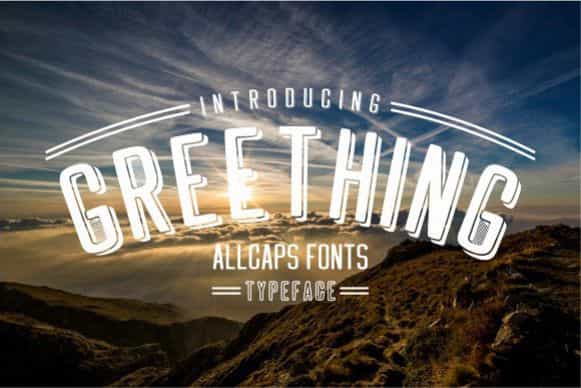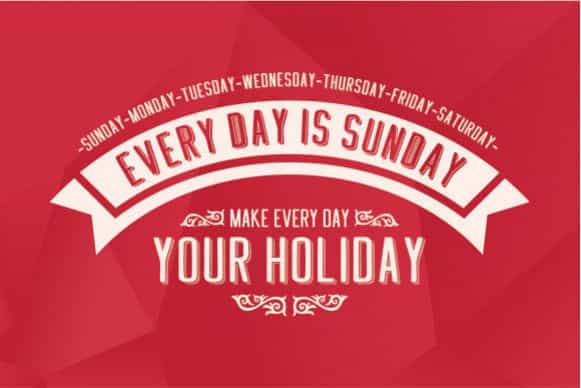
GREETHING SANS is a simple and vintage sans serif font that has a shadow block or line which was designed to fit the requirements of your next design project.